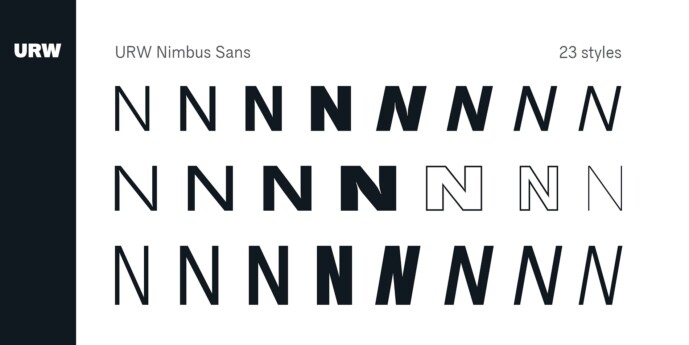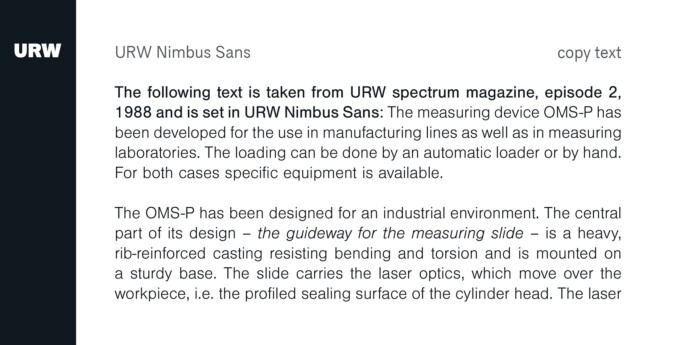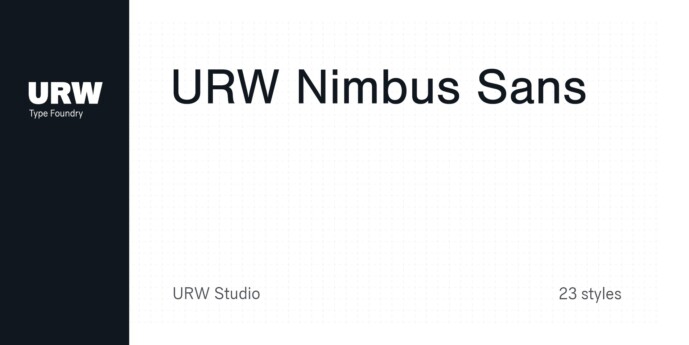
Nimbus Sans Font Family
Nimbus Sans Font Family. The first versions of Nimbus Sans have been designed and digitized in the 1980s for the URW SIGNUS sign-making system. Highest precision of all characters (1/100 mm accuracy) as well as spacing and kerning were required because the fonts should be cut in any size in vinyl or other material used for sign-making. During this period three size ranges were created for text (T), the display (D) and poster (P) for small, medium and very large font sizes. In addition, we produced a so-called L-version that was compatible to Adobe’s PostScript version of Helvetica. Nimbus was also the product name of a URW-proprietary renderer for high quality and fast rasterization of outline fonts, a software provided to the developers of PostScript clone RIPs (Hyphen, Harlequin, etc.) back then. Also in the 80s, a new, improved version of the Nimbus Sans, namely Nimbus Sans Novus was designed. Nimbus Sans Novus was conceptually developed entirely with URW’s IKARUS system, i.e. all styles harmonize perfectly with each other in terms of line width, weight, proportions, etc. On top of that, Nimbus Sans Novus contains more styles than Nimbus Sans. Now, Nimbus Sans is also available as Round (like the popular URW fonts Futura Round and Eurostile Round). The Round versions are intended to facilitate the work of designers and typographers. The fonts can be used directly, without further preparatory work in graphic programs as finished, high-quality Rounds.